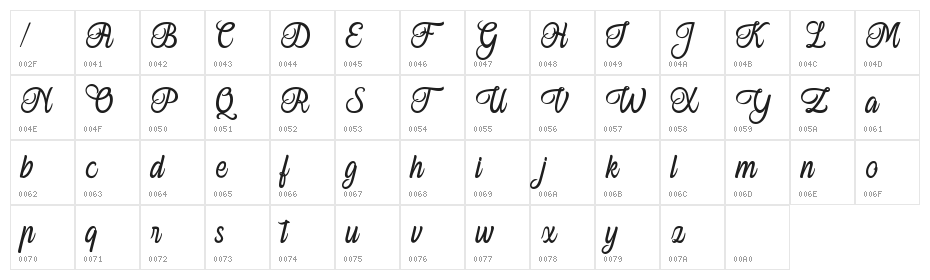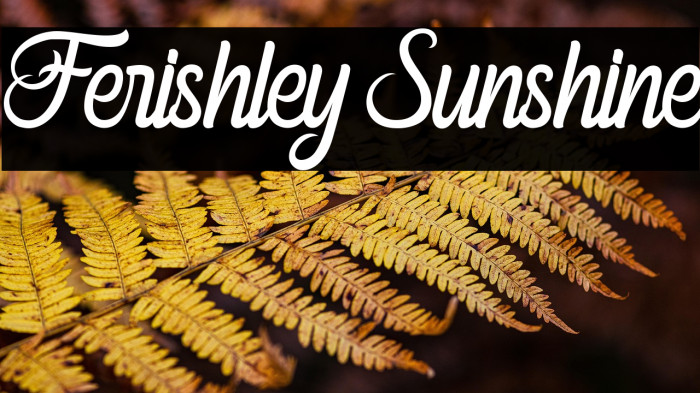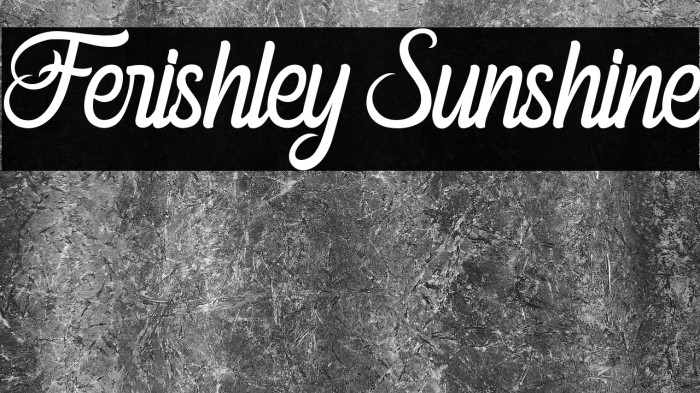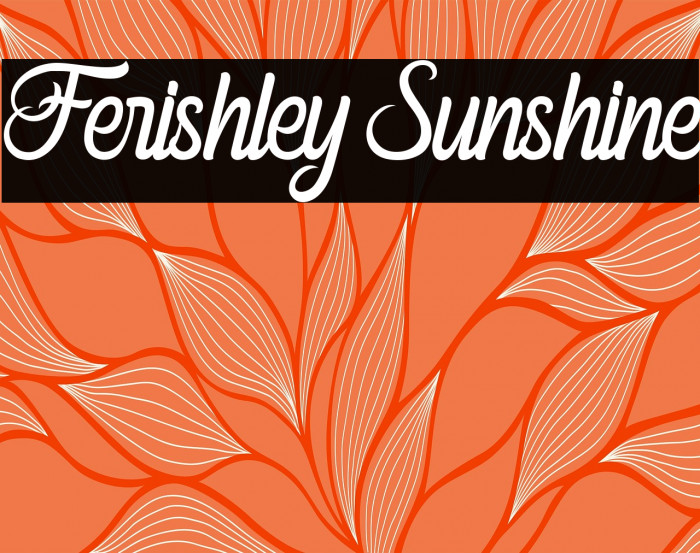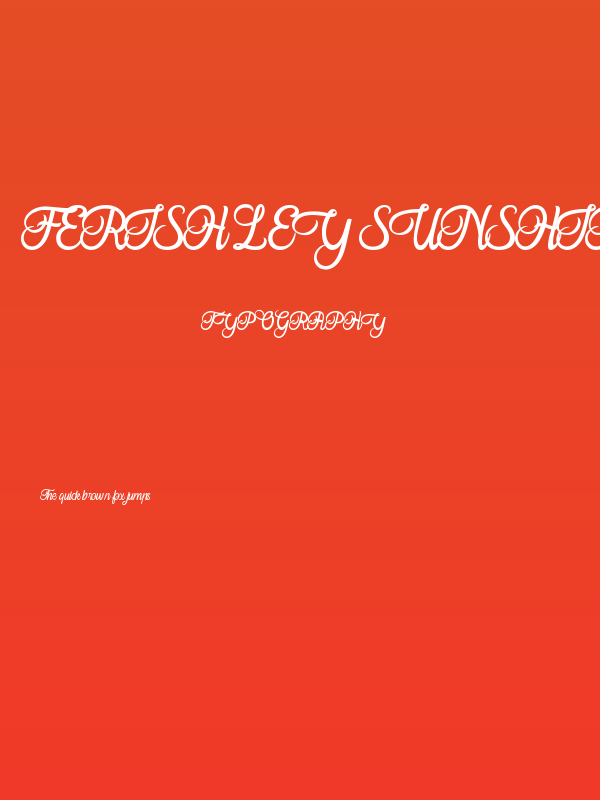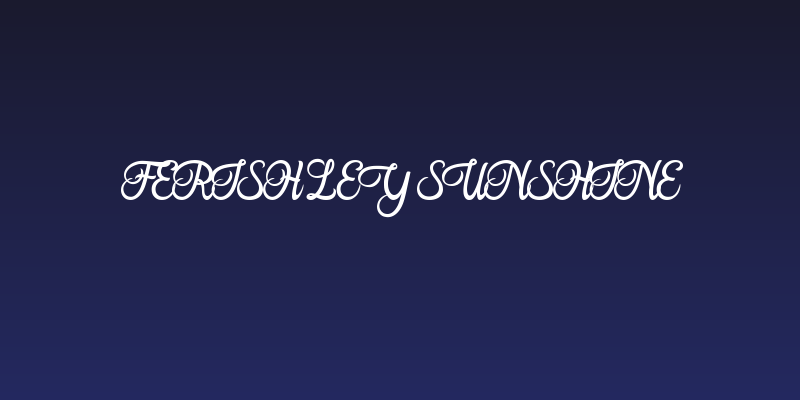
Ferishley Sunshine Font
Ferishley Sunshine Description
This font features an elegant and flowing script style, characterized by its smooth, cursive letterforms that exude a sense of sophistication and grace. The uppercase letters are ornate, with intricate loops and swirls that add a decorative touch, while the lowercase letters maintain a consistent fluidity, making it ideal for creating a cohesive and stylish look. The font's design is reminiscent of traditional calligraphy, yet it maintains a modern appeal, making it versatile for various design applications. Its legibility is enhanced by the balanced spacing and consistent stroke width, ensuring readability even in smaller sizes.
Overall StyleElegant
Use CaseLogos, Invitations, Decorative text
Proposed ProjectsIdeal for wedding invitations, elegant branding, greeting cards, and luxury product packaging.